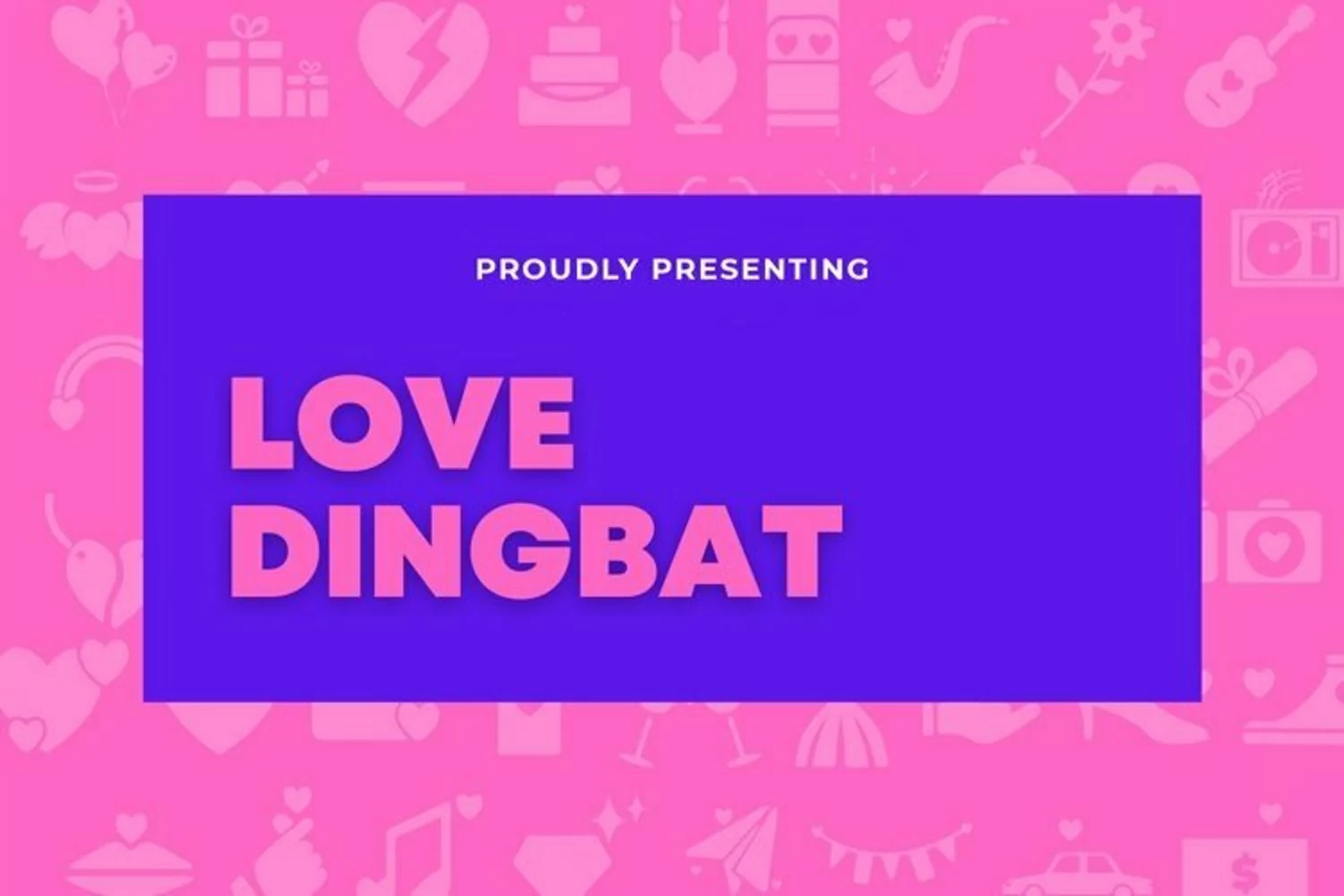
Includes 2 dingbat fonts with lovely doodles and hearts
2 script designs with a beautiful handwritten style
1 sans serif font with a wavy texture
1 Hand Written Serif
Everything you need to make adorable designs!